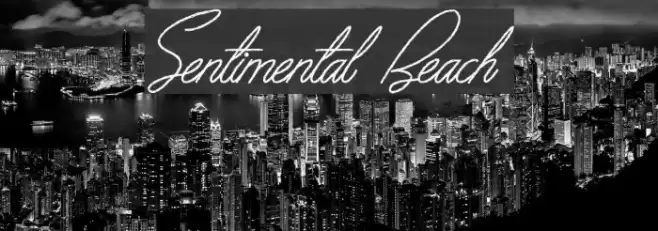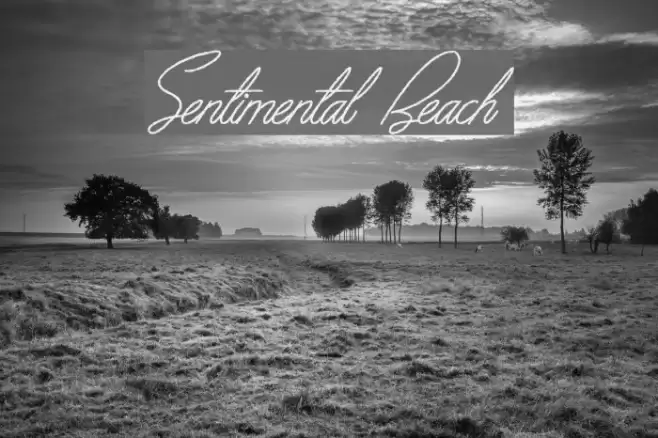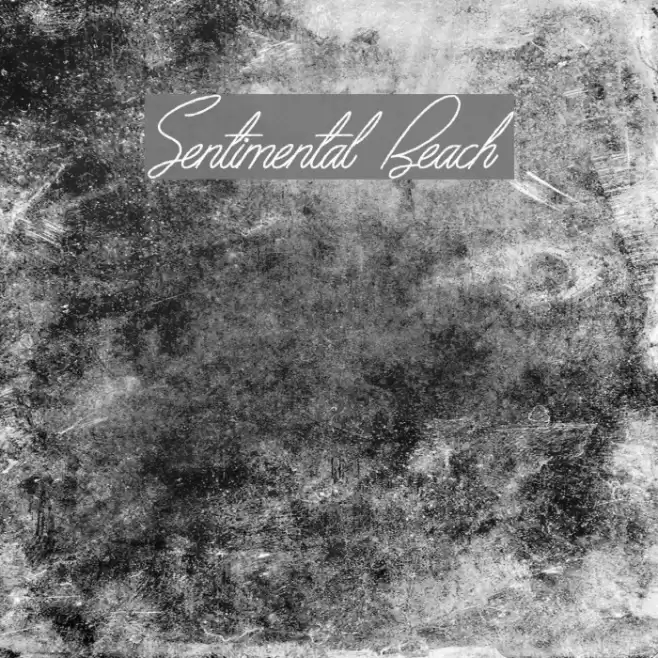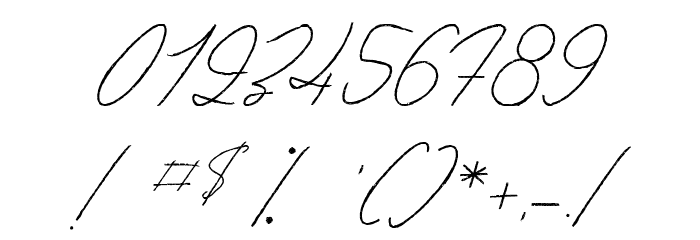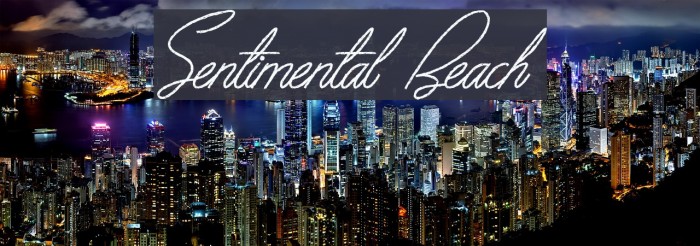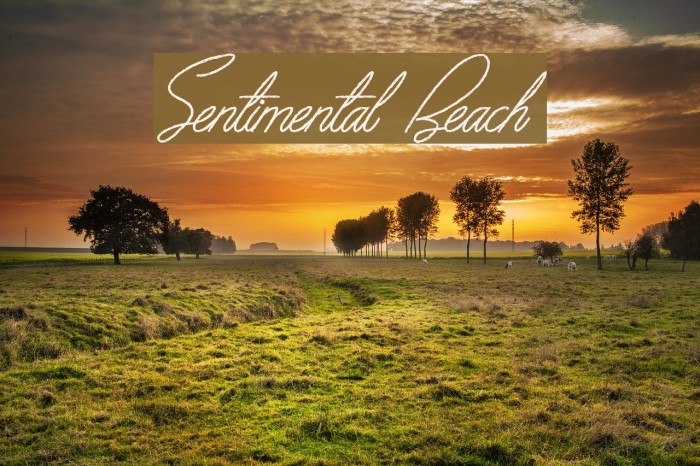
Sentimental Beach Font
Sentimental Beach Description
This font exudes a sense of elegance and fluidity, characterized by its cursive, handwritten style. The letters are gracefully connected, creating a seamless flow that mimics natural handwriting. The uppercase letters are tall and slightly slanted, while the lowercase letters maintain a consistent, flowing baseline. The numerals and special characters are designed to complement the overall script style, with a delicate and refined appearance. This font is perfect for adding a personal touch to any design, offering a sophisticated yet approachable aesthetic.
Elegant cursive font with a fluid, handwritten style from Handwritten fonts.
- Proposed Projects: Ideal for wedding invitations, greeting cards, personal branding, and elegant packaging designs.
- Character Spacing: Tight
- Overall Style: Elegant, Handwritten
- Use Case: Logos, Invitations, Personal Branding